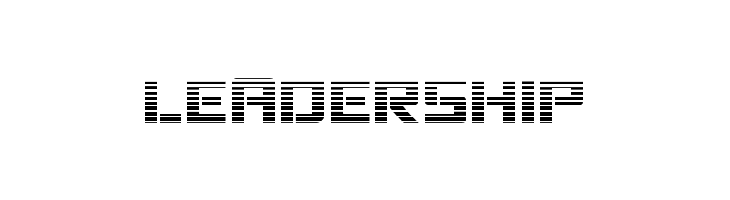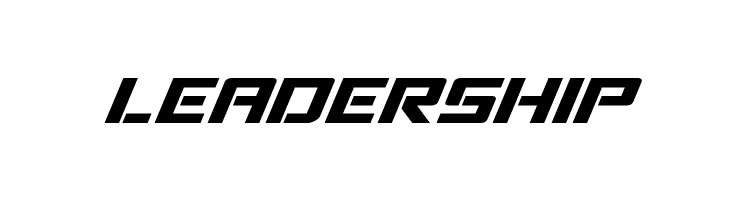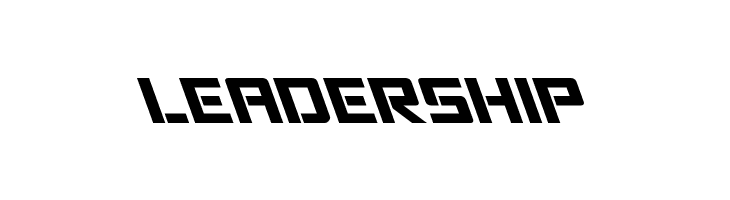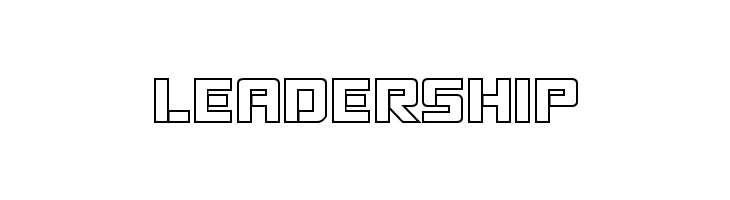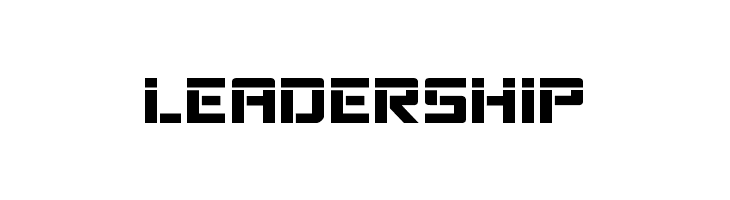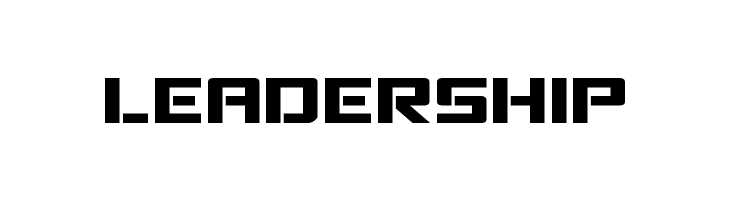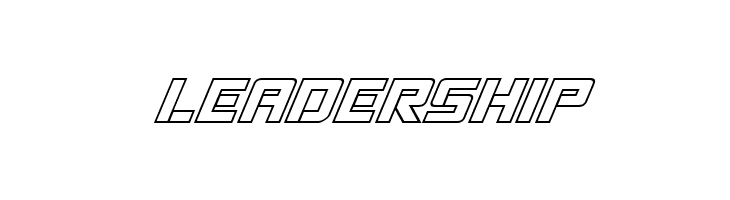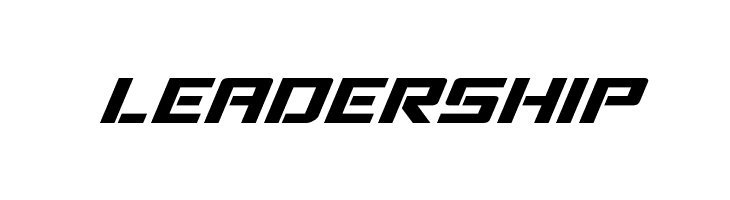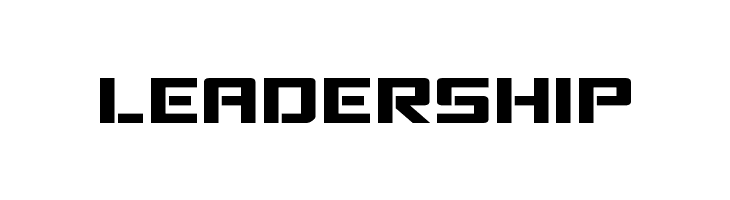
A bold, geometric font with a futuristic and dynamic style.
A bold, angular, and futuristic font with expanded italic styling.
A bold, italicized, and expanded font with a futuristic and angular design.
A bold, striped font with a futuristic and digital aesthetic.
A bold, italicized font with a futuristic gradient effect and geometric shapes.
A bold, geometric font with a halftone effect and futuristic style.
A bold, italicized font with a halftone effect and futuristic style.
A bold, italic, and angular font with a futuristic style.
A bold, italicized font with a futuristic and angular design.
A bold, geometric font with a futuristic, industrial style.
A bold, futuristic font with geometric, stencil-like characters.
A bold, futuristic italic font with sharp, angular lines.
A bold, futuristic italic font with sharp angles and geometric precision.
Bold, angular font with a leftward slant and geometric design.
A bold, geometric outline font with a modern and futuristic style.
A bold, geometric outline font with a futuristic and angular design.
A bold, outlined, and italicized font with a modern, angular design.
A bold, outlined, italic font with angular, geometric characters.
A bold, slanted font with an angular, futuristic style.
A bold, slanted font with angular, dynamic characters.
A bold, angular, semi-italic font with a futuristic style.
A bold, angular, and slightly italicized font with a futuristic and dynamic style.
A bold, angular, and italicized font with a futuristic and dynamic style.
A bold, italic, and angular font with a futuristic and dynamic style.